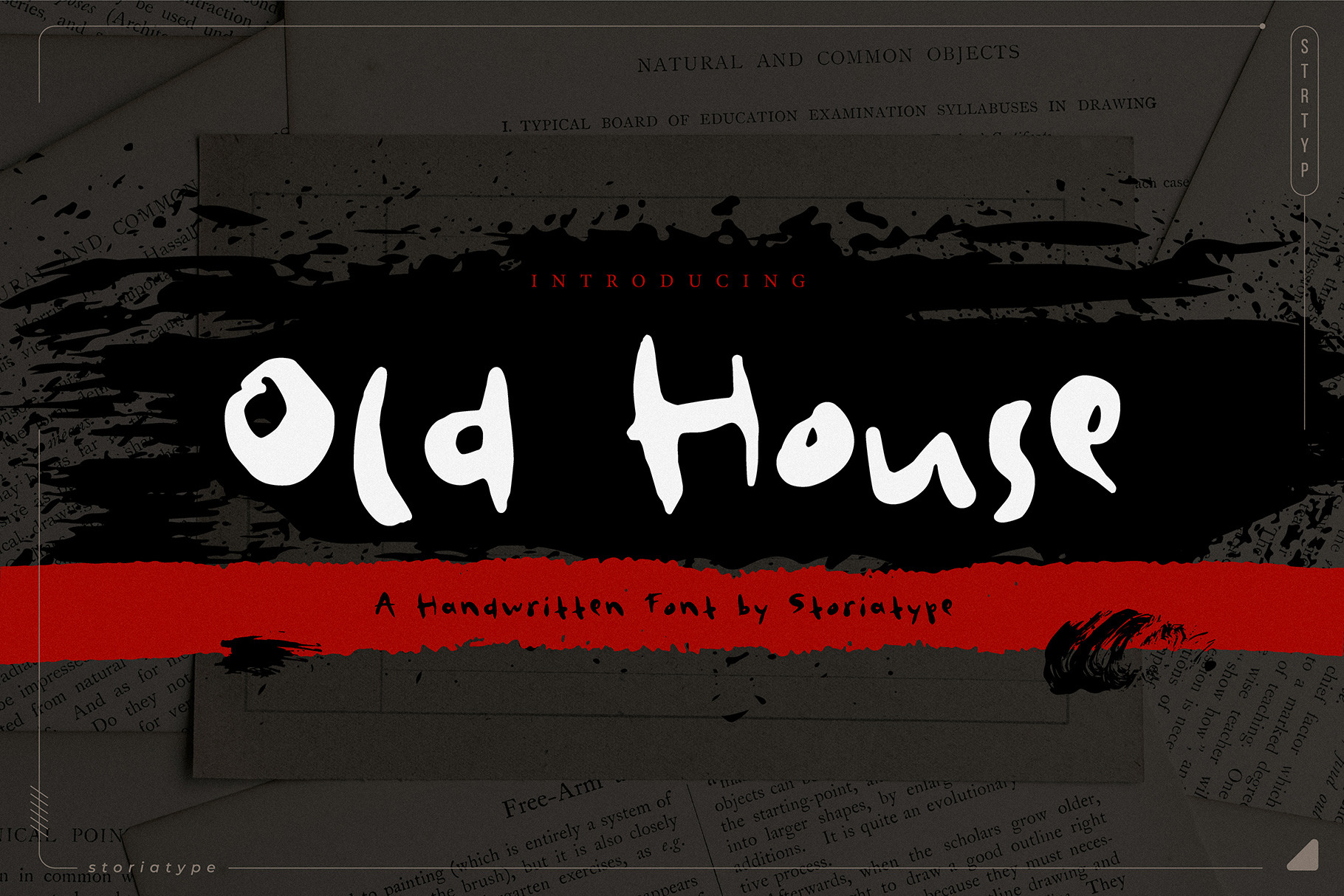
Old House - Rustic Handwritten Font
Casual and Artistic Font: Old-House is a handwritten font, with irregular edges and varying thickness in the strokes, giving it a personal and expressive character.
Easy to Read: It has been designed with legibility in mind, making it easy to read even at small sizes.
Perfect for Digital and Print Media: Perfect for use in digital media, such as websites, apps, posters, and social media platforms, as well as in print media, such as brochures, flyers, and posters. This is a unique font that will make your designs stand out from the crowd.